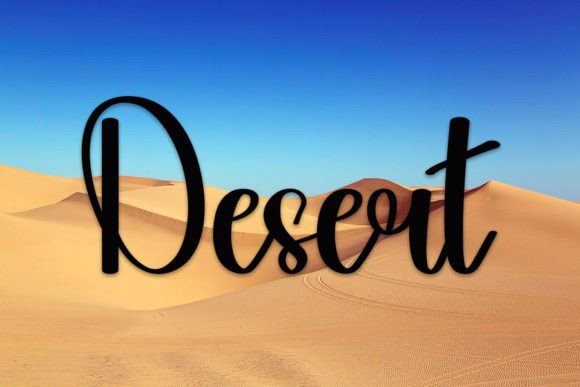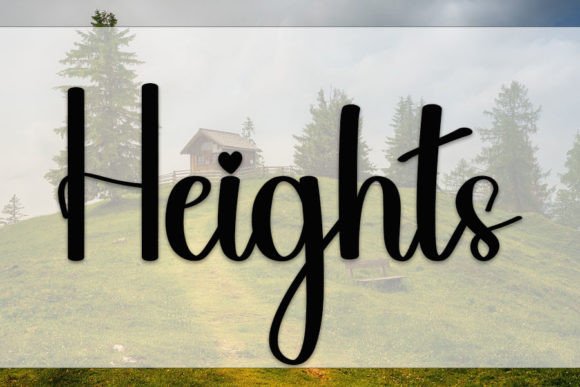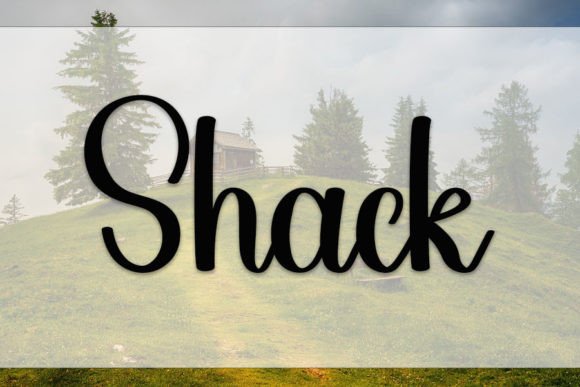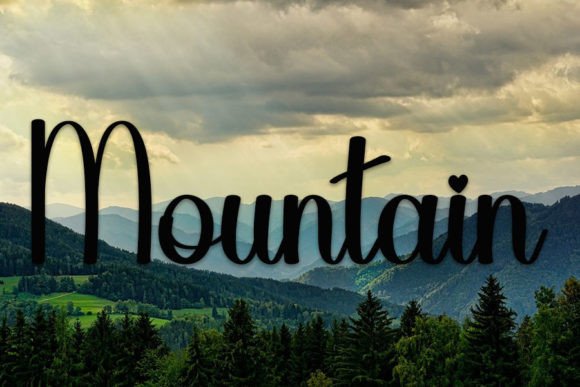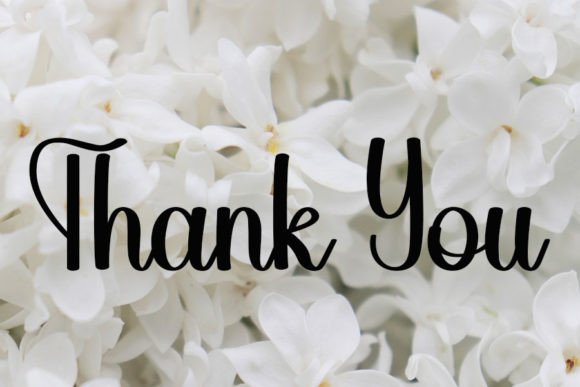
Blooming Font: Elevate Your Designs with Elegance and Timeless Style
Are you on the hunt for a font that exudes elegance, sophistication, and a touch of whimsy? Look no further than Blooming Font, a stunning handwritten typeface that is sure to capture your heart. With its incredibly distinct and timeless style, Blooming Font is the perfect addition to your design arsenal, allowing you to create spectacular designs that stand out from the crowd.
The Beauty of Blooming Font
Blooming Font is a neat and beautiful handwritten font that boasts an elegant touch, making it an ideal choice for designers and crafters who want to add a touch of sophistication to their projects. Its unique and flowing script is reminiscent of traditional calligraphy, yet it has a modern twist that sets it apart from more traditional fonts.
One of the standout features of Blooming Font is its incredible legibility, making it perfect for use in a variety of design applications, from logos and branding to invitations and social media graphics. Whether you’re creating a stylish and elegant wedding invitation or a bold and eye-catching poster, Blooming Font is sure to make your design shine.
Why Choose Blooming Font?
So, what sets Blooming Font apart from other fonts on the market? Here are just a few reasons why designers and crafters are falling in love with this beautiful typeface:
- Elegant and Sophisticated: Blooming Font has an undeniable air of elegance and sophistication, making it perfect for designs that require a touch of refinement.
- Unique and Timeless: With its unique and flowing script, Blooming Font has a timeless quality that ensures your designs will never go out of style.
- Versatile: Whether you’re creating a logo, invitation, or social media graphic, Blooming Font is incredibly versatile and can be used in a wide range of design applications.
- Easy to Read: Despite its elegant and cursive nature, Blooming Font is incredibly easy to read, making it perfect for use in body text and other applications where legibility is key.
Using Blooming Font in Your Designs
So, how can you use Blooming Font in your designs? The possibilities are endless! Here are a few ideas to get you started:
- Wedding Invitations: Create beautiful and elegant wedding invitations that set the tone for a sophisticated and stylish big day.
- Logos and Branding: Use Blooming Font to create a stunning logo or brand identity that exudes elegance and sophistication.
- Social Media Graphics: Add a touch of elegance to your social media graphics, from Instagram posts to Facebook graphics.
- Stationery: Create beautiful and stylish stationery, from notecards to journals.
Tips for Getting the Most Out of Blooming Font
To get the most out of Blooming Font, here are a few tips to keep in mind:
- Experiment with Different Sizes: Blooming Font looks stunning in a variety of sizes, from large and bold to small and delicate.
- Play with Color: Don’t be afraid to experiment with different colors and textures to add depth and interest to your designs.
- Pair with Other Fonts: Blooming Font pairs beautifully with a range of other fonts, from bold and modern to elegant and serif.
In conclusion, Blooming Font is a beautiful and elegant handwritten font that is sure to capture your heart. With its incredibly distinct and timeless style, it’s the perfect addition to your design arsenal, allowing you to create spectacular designs that stand out from the crowd. Whether you’re a designer, crafter, or simply someone who appreciates beautiful typography, Blooming Font is a must-have font that is sure to inspire and delight.